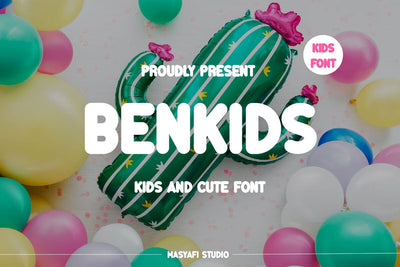
Benkids - Cute Bold Display Font
Hi, Introducing Benkids - Cute Bold Display Font
A display font with a bold and clean sans serif style. This font can perfect your creativity. This font is cool for t-shirts, stickers, mugs, prints, labels, crafts, SVG cut files, Cricut, wall art, social media, web, branding, business, and many other ideas.